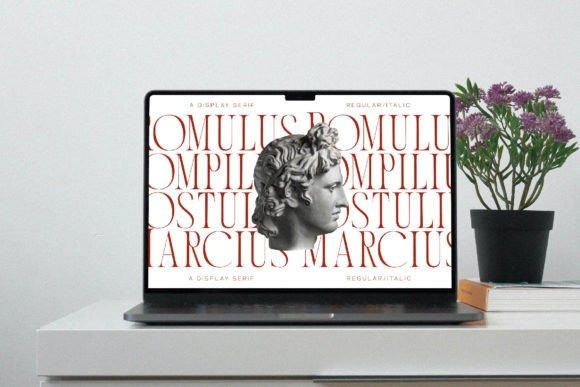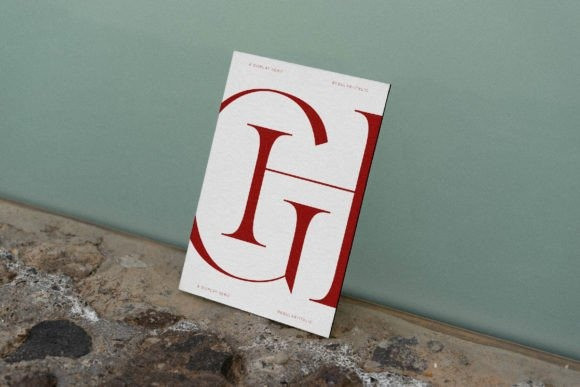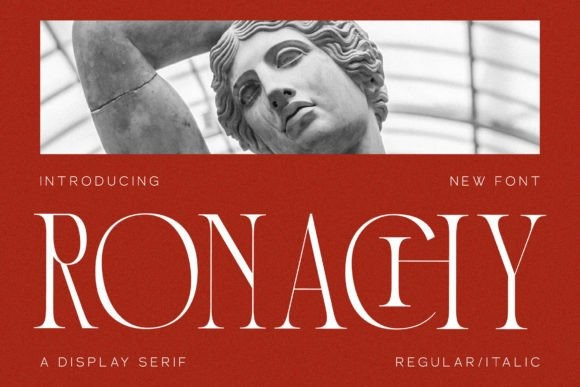
Ronachy Font
Ronachy Font is a modern and classic serif typeface that has its own unique style and modern look. This typeface is perfect for an elegant & luxurious logo, book or movie title design, fashion brand, magazine, clothes, lettering, quotes, and so much more.